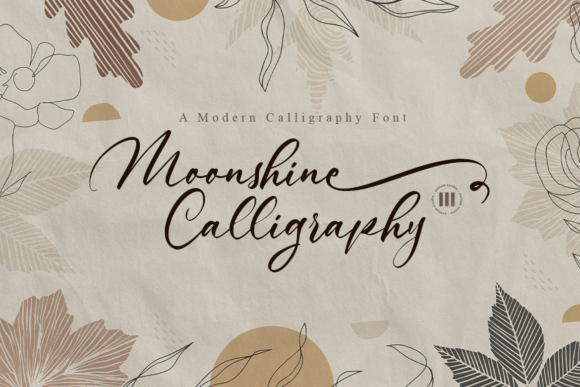
Unleash the Beauty of Moonshine Calligraphy: A Journey into the Realm of Enchanting Handwritten Elegance
In the vast expanse of digital artistry, there exists a font that captures the essence of handwritten beauty like no other – Moonshine Calligraphy. This enchanting script font, crafted by the skilled artisans at Colllabstudio, invites you on a journey into the realm of elegance and charm.
At its core, Moonshine Calligraphy is a symphony of carefully penned strokes and flourishes, each one a testament to the artistry and dedication of its creators. Its flowing lines and graceful curves evoke a sense of nostalgia, transporting you to a time when handwritten letters were cherished treasures.
With its versatility, Moonshine Calligraphy transcends the boundaries of traditional penmanship. Whether you seek to add a touch of sophistication to your greeting cards, design captivating headlines that demand attention, or create personalized logos that exude creativity, this font is your trusted companion.
Beyond its aesthetic appeal, Moonshine Calligraphy is a font that empowers you to unleash your creative spirit. Its PUA encoding opens up a world of possibilities, allowing you to effortlessly access a treasure trove of glyphs and swashes. Experiment with letter combinations, explore unique ligatures, and unlock the full potential of your design vision.
Step into the world of Moonshine Calligraphy and embark on a journey of creative exploration. Let its enchanting handwritten charm captivate your imagination and transform your designs into masterpieces. The possibilities are endless, and the beauty is yours to behold.